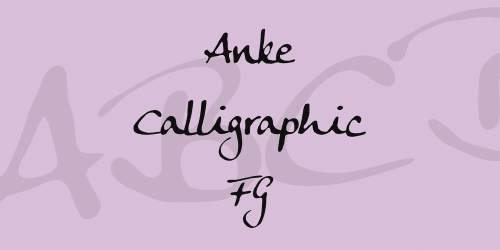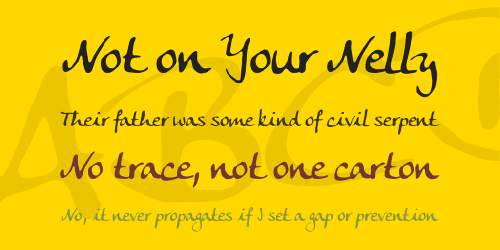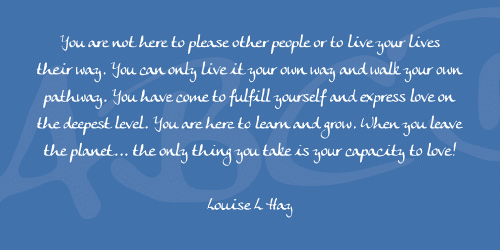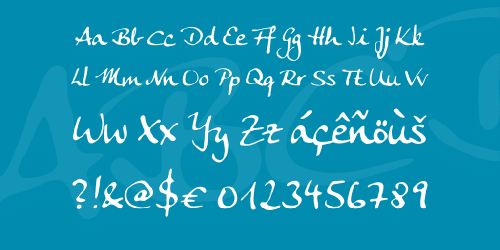
Originally by Anke Arnold, www.anke-art.de, this handwriting font was amplified with international characters and reworked spacing as well as vertical adjustments by Fontgrube AH, adding 100 kern pairs to make it run more smoothly, so make sure you have kerning turned on in your word processor or DTP program.
The typeface tries to imitate casual handwriting with a calligraphic nib, without requiring support for OpenType features. It is aimed at everyday users but can also be used in a professional context free of charge.